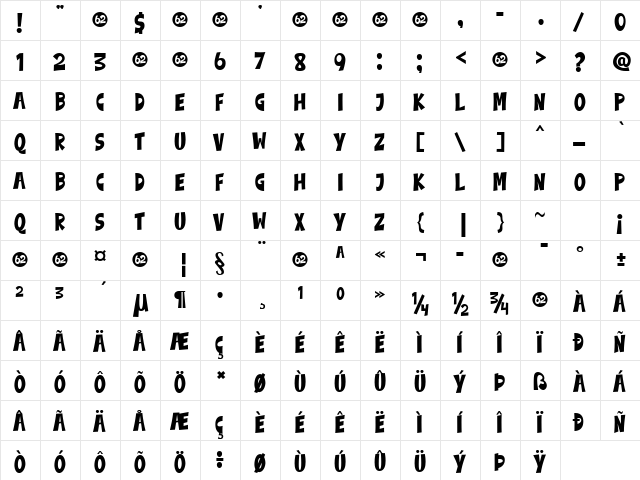
Squad 62 Regular
Design Context for Squad 62 Typeface
Squad 62 is a composed and adaptable typeface that performs quietly and consistently across a wide range of design contexts.
Pro Tip: Use Squad 62 in both headline and body roles to test its range before committing to a single application.